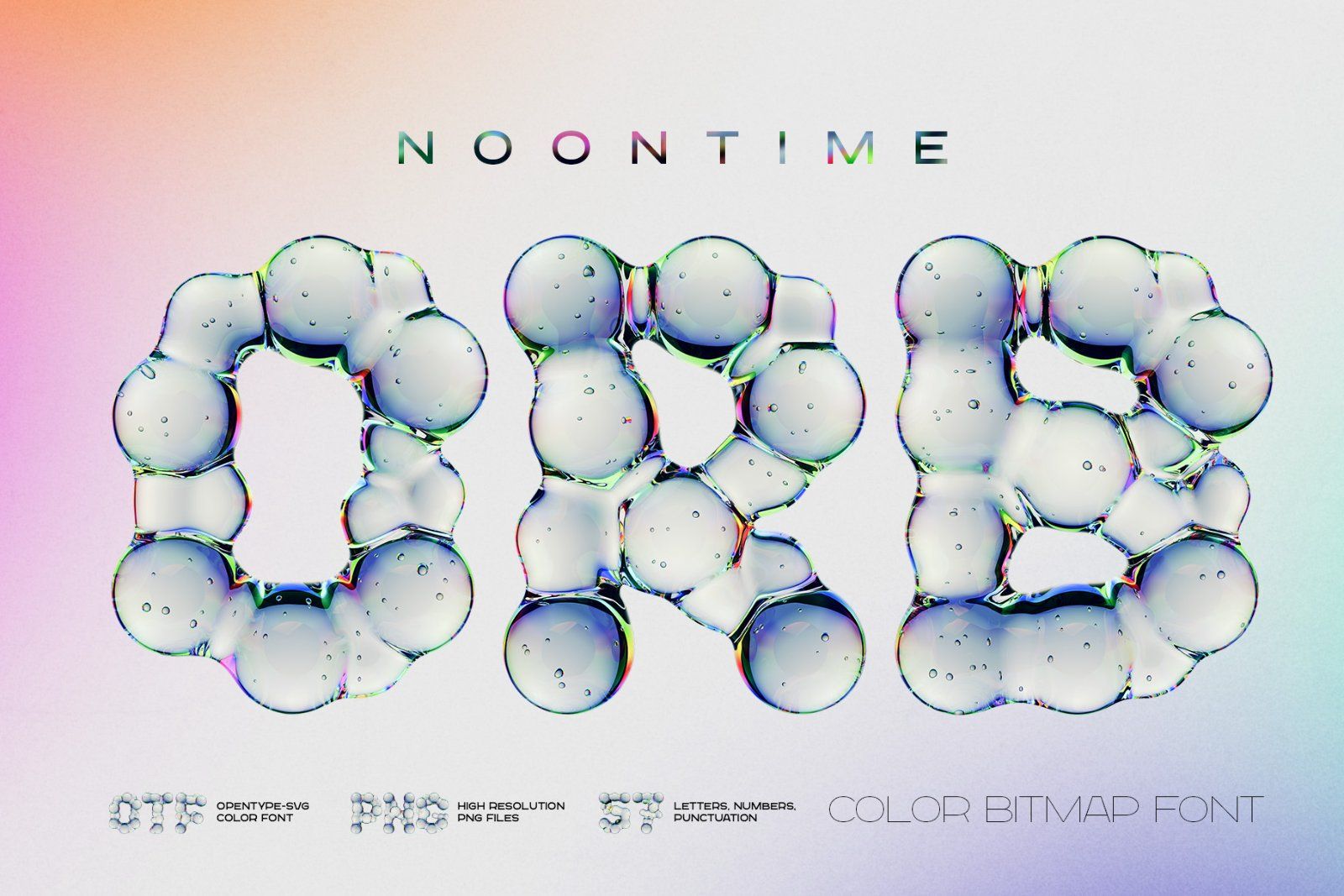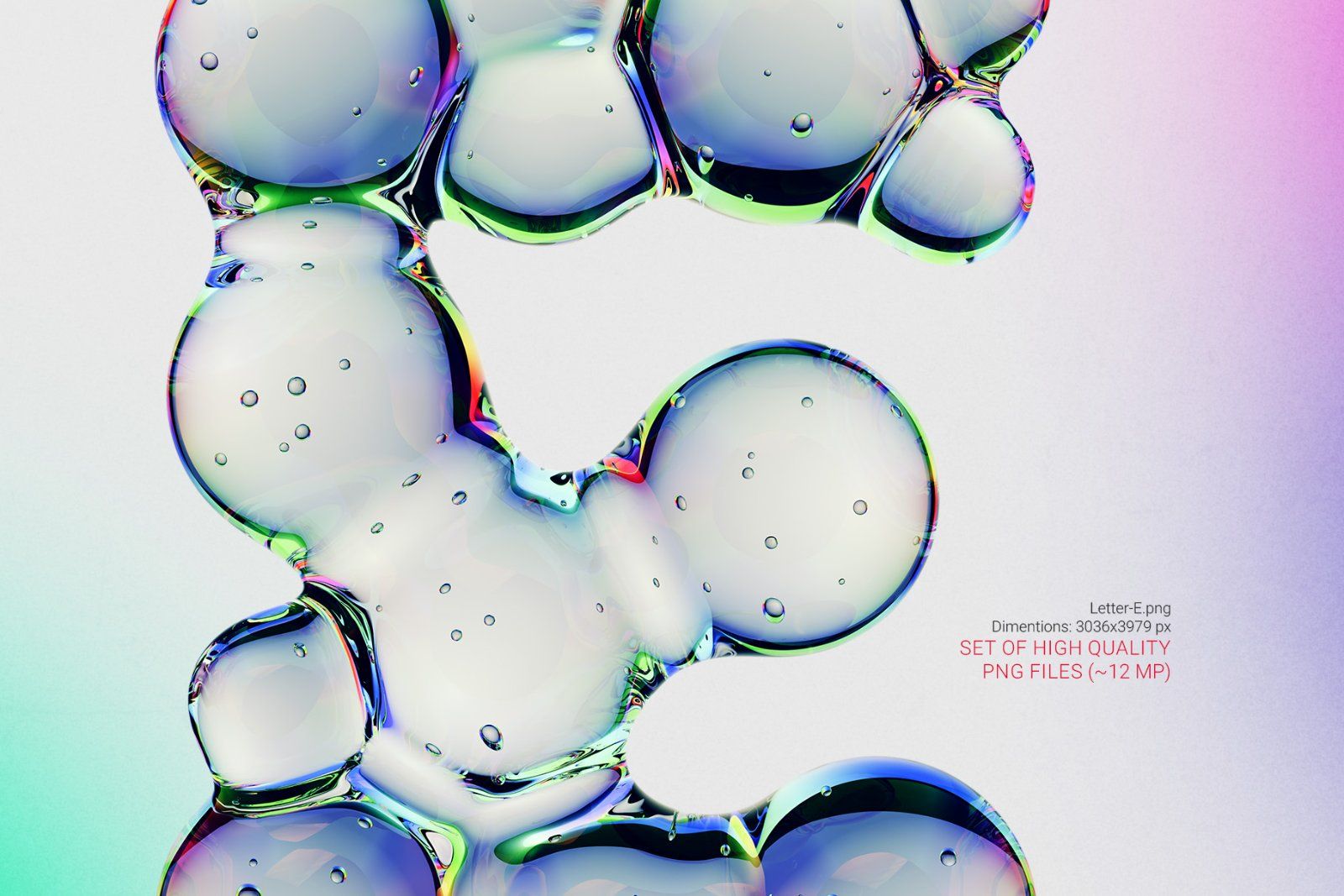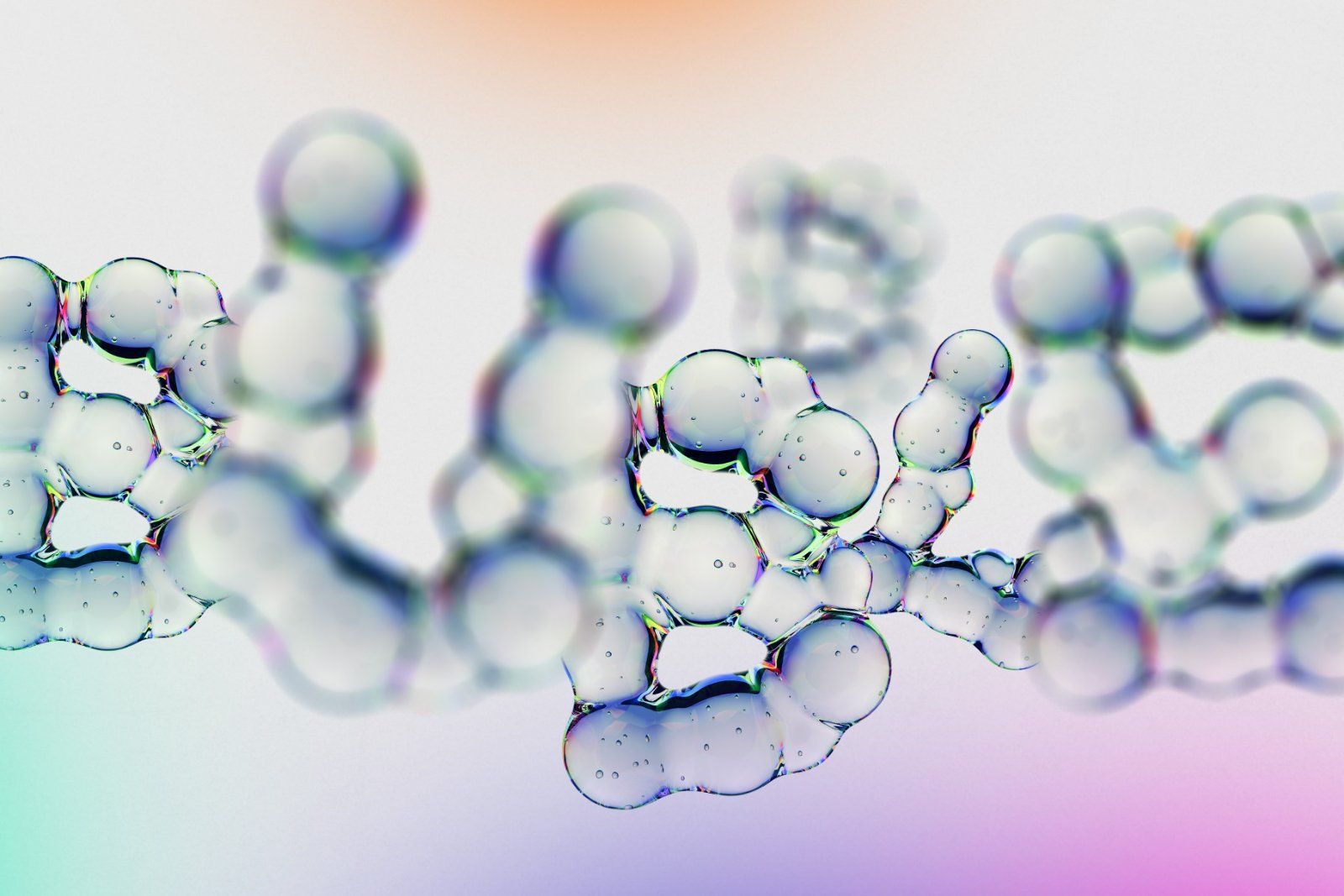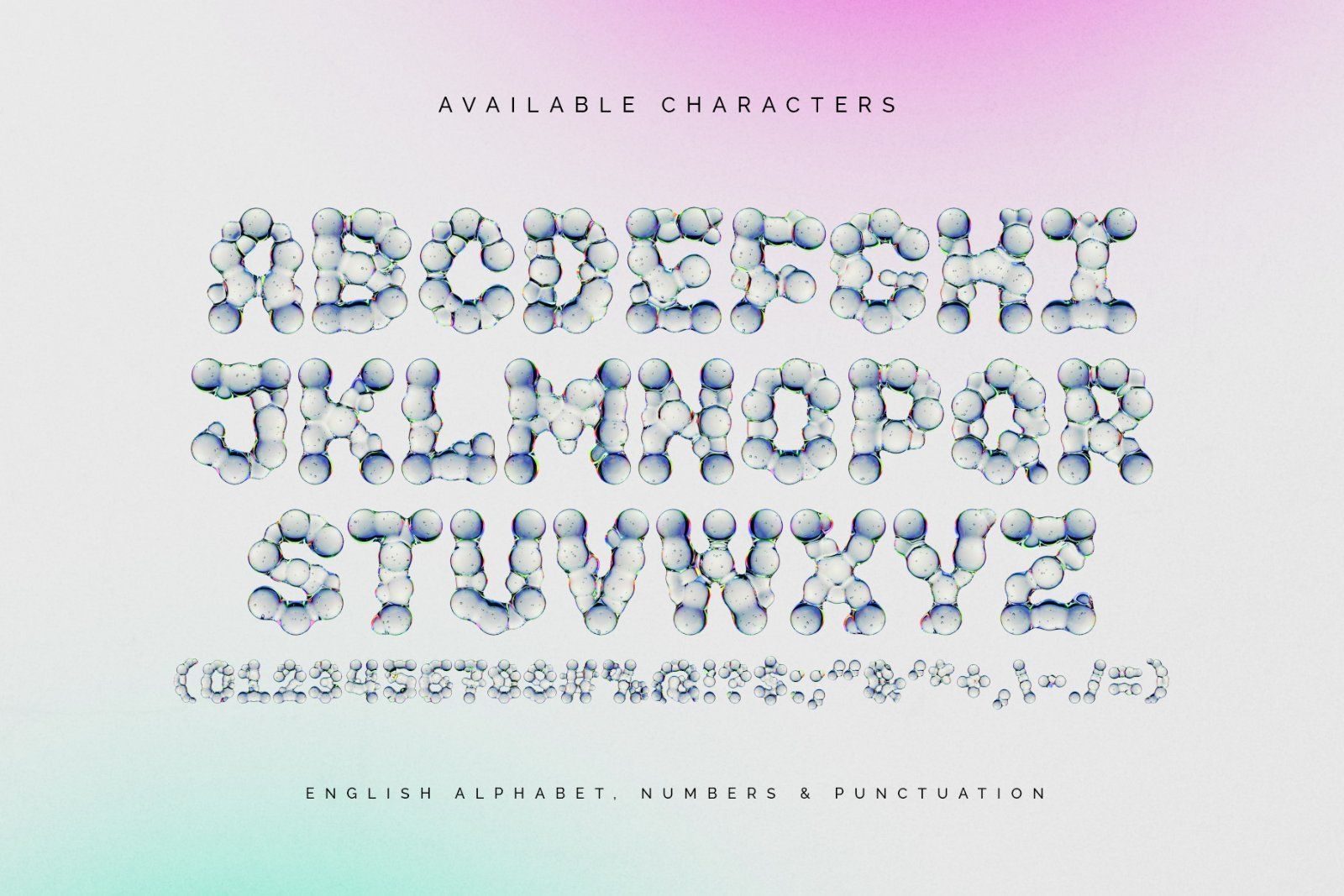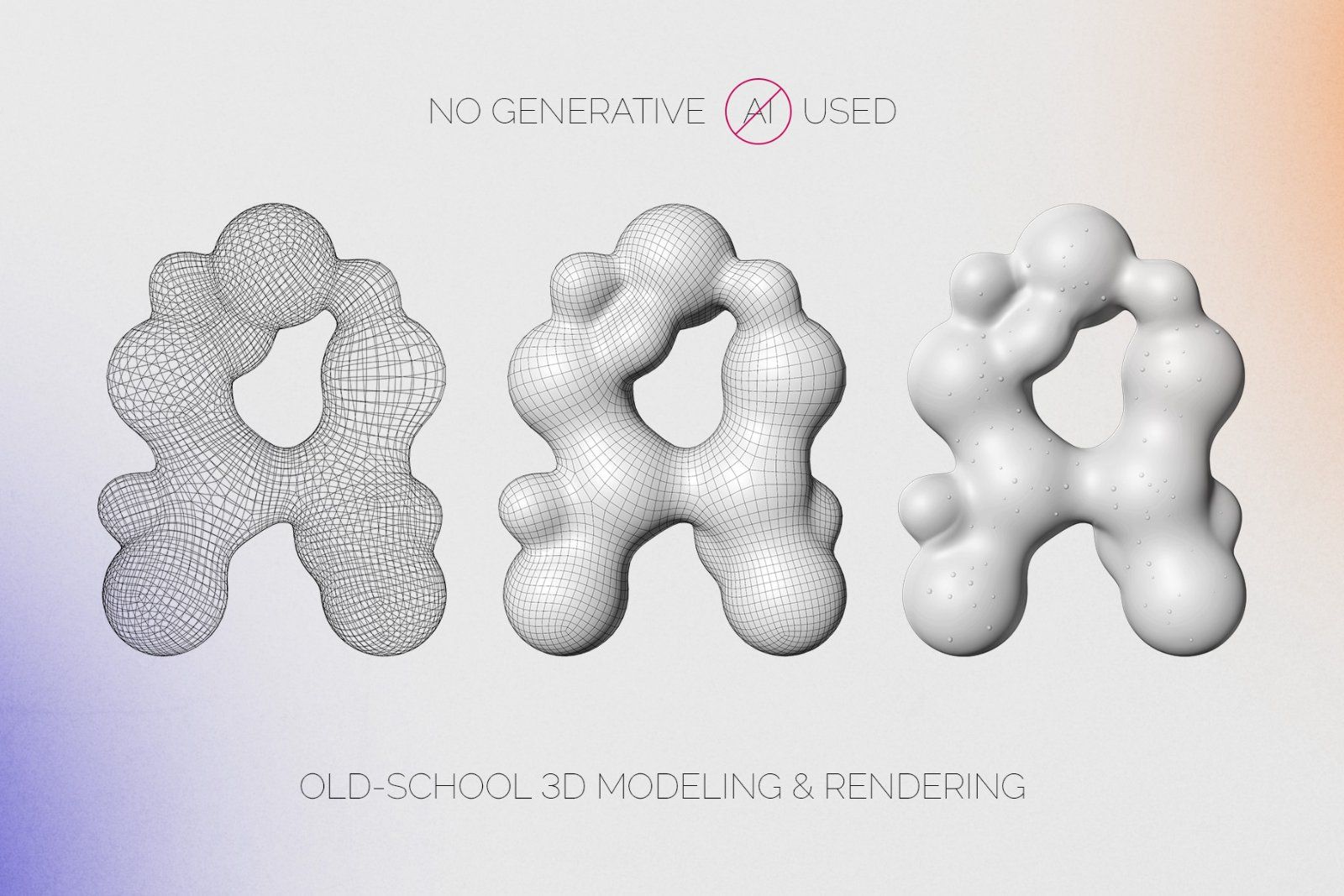
Introducing Noontime ORB, a colorful and creative font set. This collection features a 3D-rendered blob shape with light and clear liquid material. Its bouncy, jelly-like contours bring a cheerful energy and a splash of fun to any contemporary graphic project.